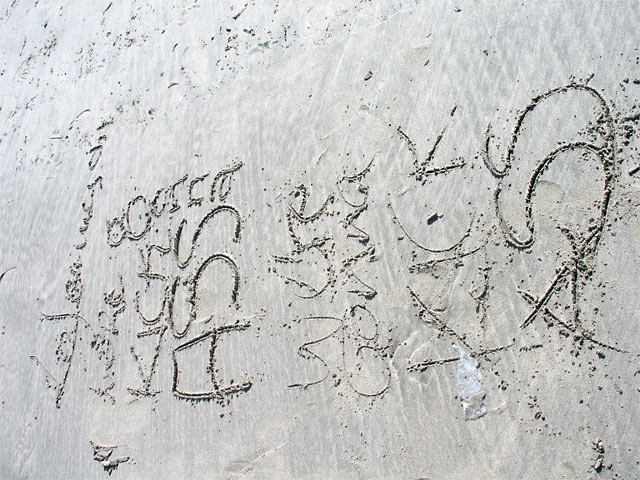
The Art of Silent Judo by the female judokas
All female judokas created one big piece of lettering together. As this installation was also a 'boys against the girls' match, they wrote one long text: Les femmes dit: 'We're gonna kick your ass'. Impressing the male judokas with some strong and sensible typography which combines different typographic styles, made with different tools, on a huge scale. The final text was too big achieve a good and complete overview in one picture.